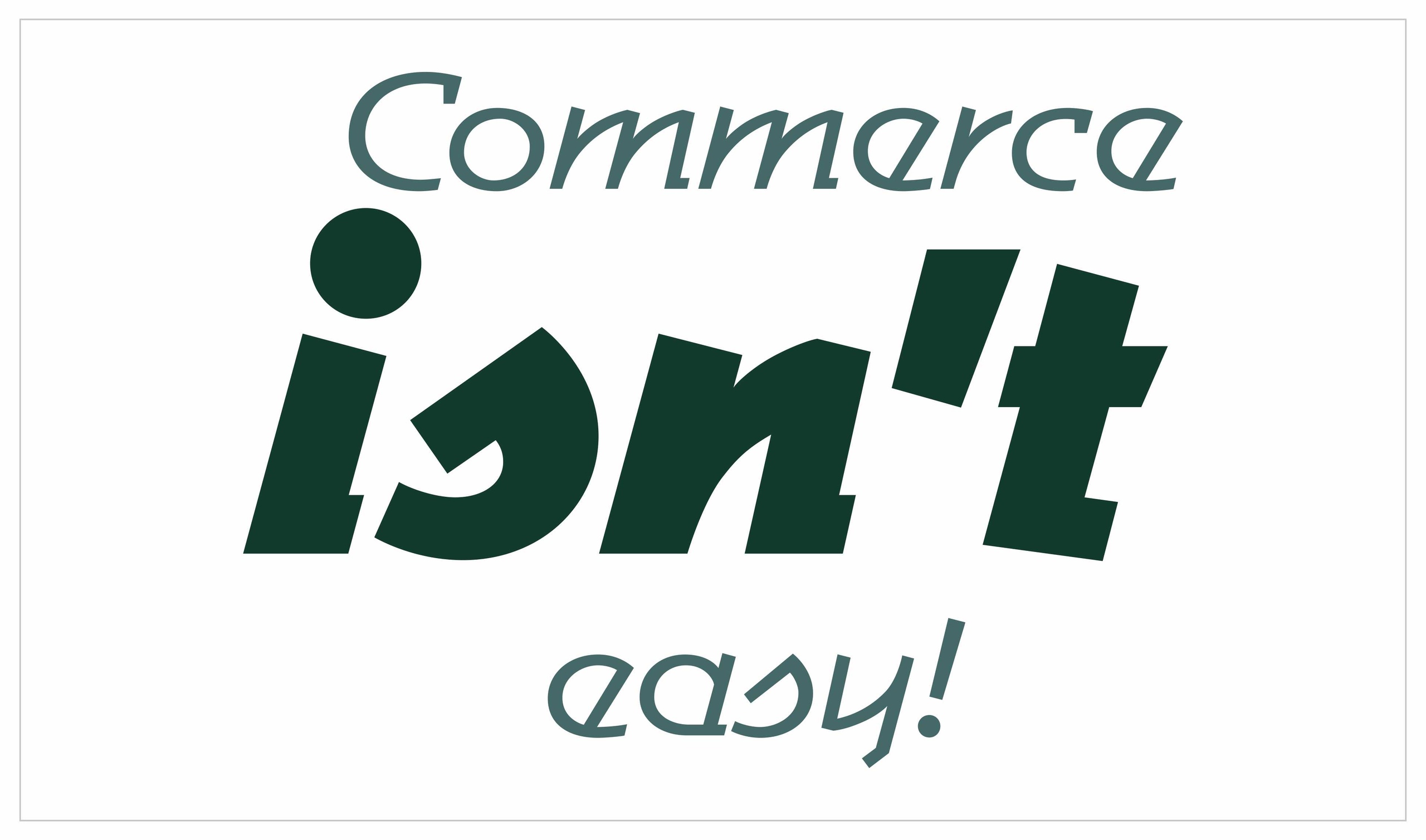
Commerce Font
Commerce Font is perfect for retail chain branding, e-commerce platform interfaces, financial services marketing, business consulting firms, commercial real estate signage, trade association materials, marketplace advertising, and professional service communications. This reliable typeface excels in applications where commercial trustworthiness and business professionalism are essential for creating credible and effective brand experiences that inspire customer confidence.
What makes Commerce Font truly exciting is its dependable embodiment of business reliability and commercial excellence that captures the essential trust required for successful trade relationships and the professional standards that drive economic growth. The font features clean, business-focused letterforms with commercial character details and systematic proportions that mirror the efficiency of modern commerce and the straightforward communication needed for successful business transactions. Its professional personality and commercial character create an immediate sense of business competence and market reliability that resonates with audiences seeking trustworthy commercial partners and dependable business services. The typeface's commercial heritage and business appeal make it perfect for brands wanting to convey reliability, professionalism, and connection to the fundamental principles of ethical commerce and sustainable business practices.
The Commerce Font family includes multiple weights from Light to Bold, complemented by business alternates and commerce-inspired decorative elements. The font offers comprehensive character sets with financial symbols, commercial indicators, and business styling details that enhance its professional aesthetic. Additional graphic elements including trade patterns, business motifs, commercial ornaments, and market flourishes provide designers with complete branding tools rooted in commercial tradition and business excellence culture.